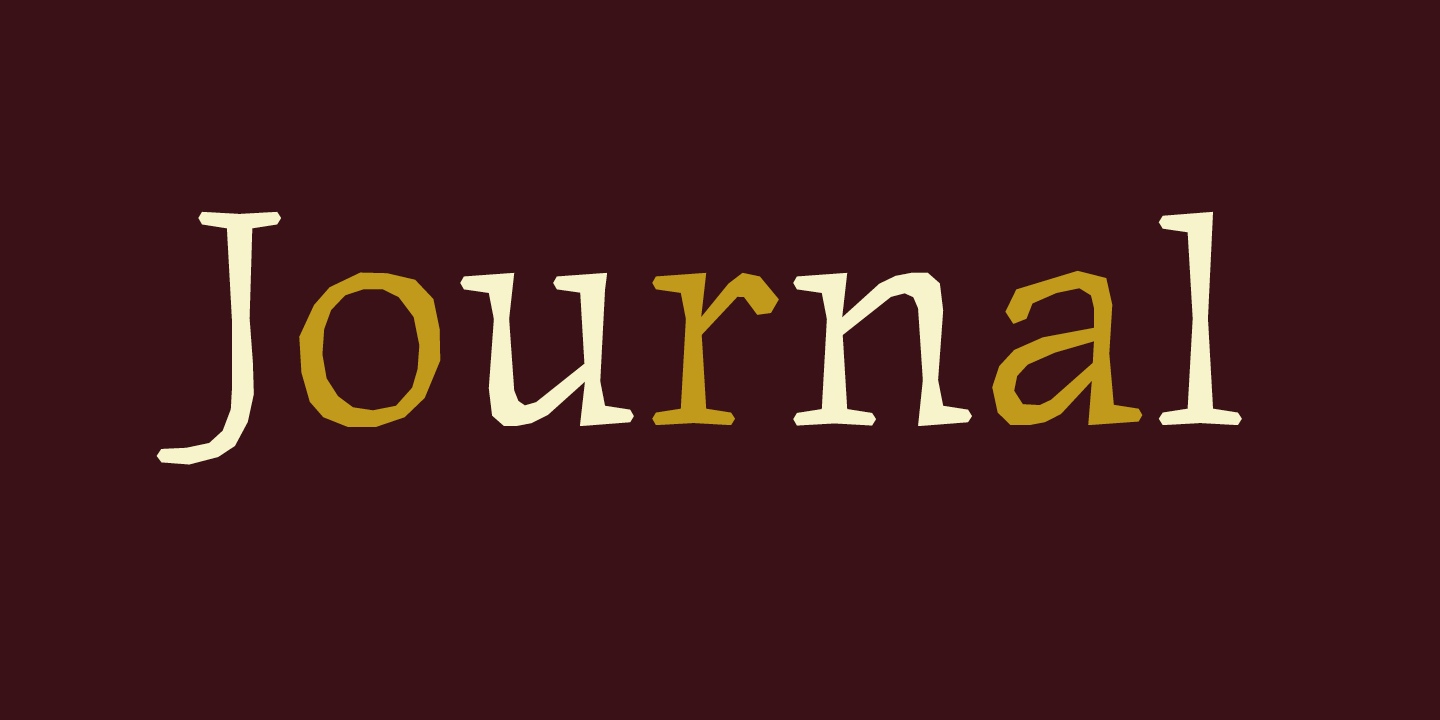
Journal Font
Journal Font is perfect for publishing house branding, editorial magazine layouts, personal blog designs, diary app interfaces, memoir book covers, and thoughtful writing platforms. This contemplative typeface excels in literary publications, journaling applications, news website headers, and any application where personal reflection and authentic storytelling create meaningful connections through written expression.
What makes Journal Font so exciting is its remarkable ability to evoke the intimate nature of personal writing and thoughtful reflection through letterforms that feel like handwritten thoughts captured on paper. The font features gentle curves, natural spacing, and contemplative character shapes that create an immediate sense of honesty and authenticity. Its reflective personality makes it perfect for platforms and publications that value genuine human expression and meaningful communication.
Journal Font comes in a thoughtful family including Light, Regular, Medium, Bold, and Memoir weights. Each style features complete uppercase and lowercase character sets, literary symbols, reflective numerals, and contemplative punctuation marks. The font family also includes diary alternates, writing ligatures, and personal variations that allow designers to create authentic journaling communications with intimate appeal and professional readability.
This expressive typeface transforms digital communications into personal narratives that resonate with authentic human experience. Journal Font Free Download provides writers and publishing brands with essential typography that celebrates the art of personal expression while serving contemporary digital storytelling needs. Whether you're developing blogging platforms, creating literary publications, or designing apps for personal reflection, this font delivers genuine authenticity with contemplative elegance.
The font's reflective character makes it particularly effective for publishing companies, blogging platforms, memoir writers, and personal development brands. Its intimate readability ensures that Journal Font maintains clarity while preserving its distinctive personal personality. The font's ability to evoke introspection and authentic communication makes it an invaluable pen for any project seeking to honor the written word and connect with audiences through the timeless appeal of personal storytelling, honest reflection, and the enduring power of journaling to capture human experience.